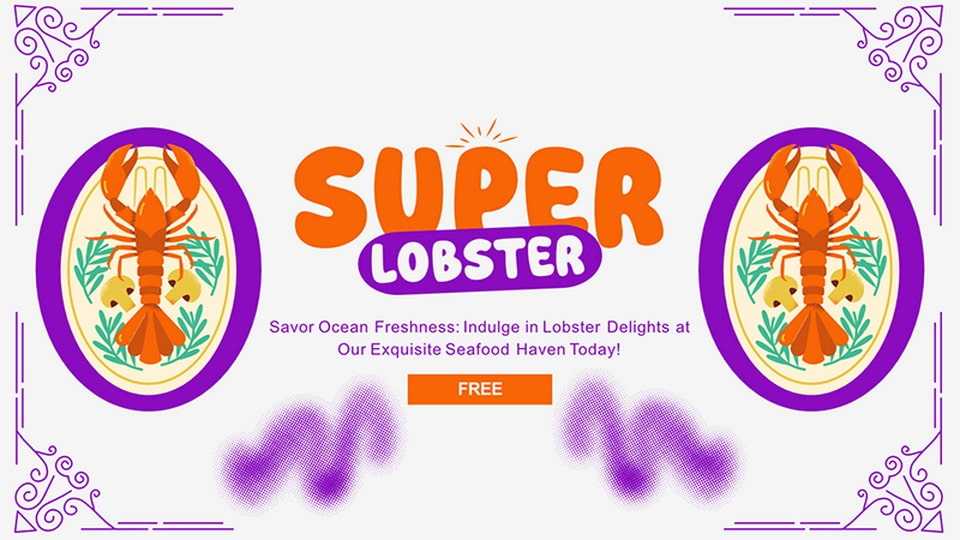
Download Super Lobster font, a bold and funny hand-drawn cartoon typeface with rounded letters and a cheerful personality with its playful curves and bouncy shapes.